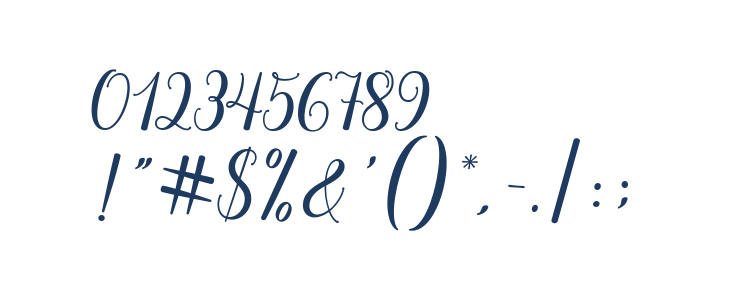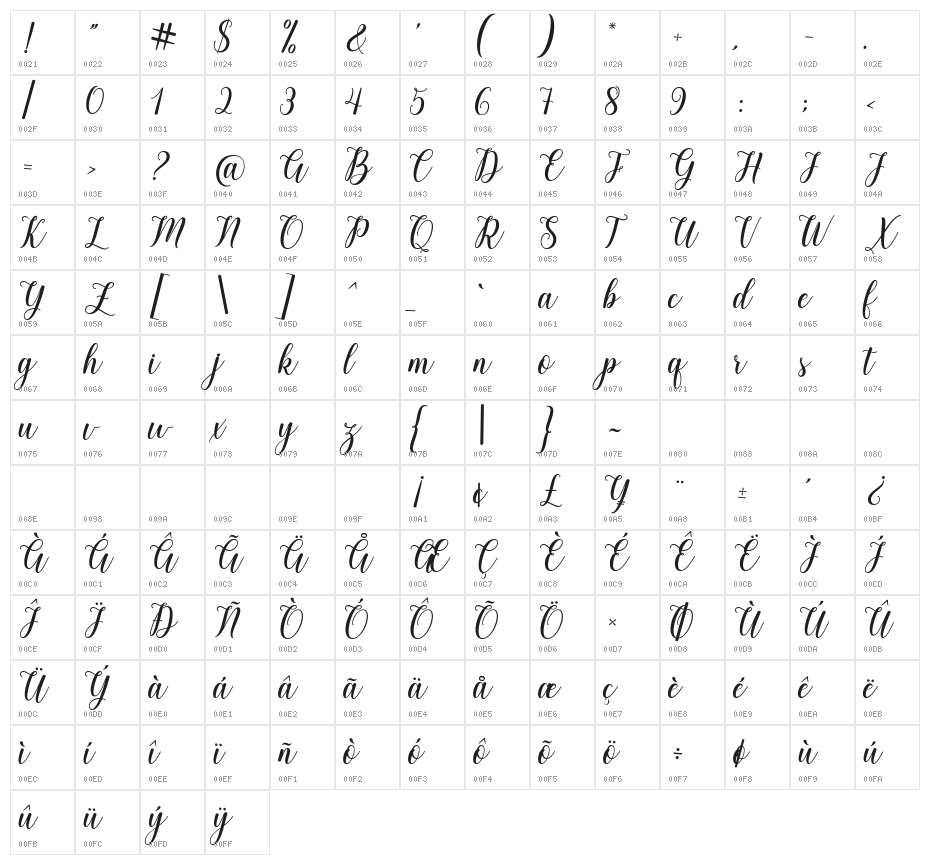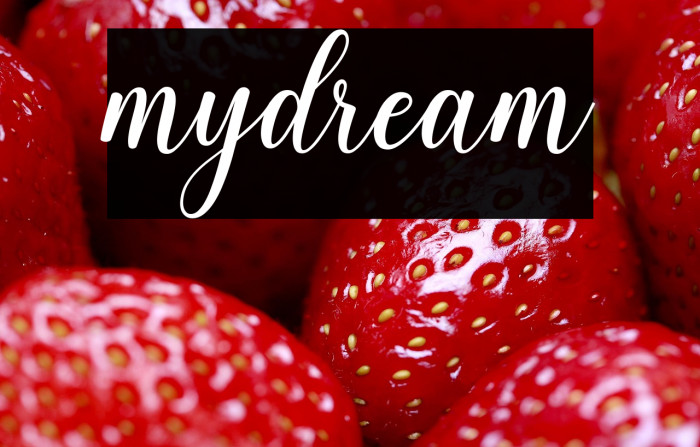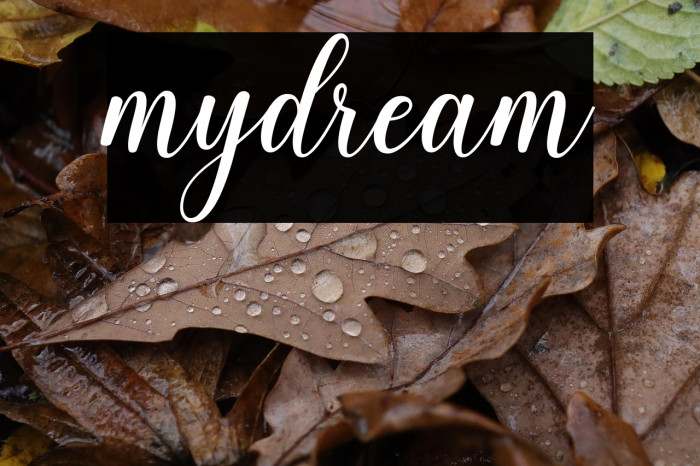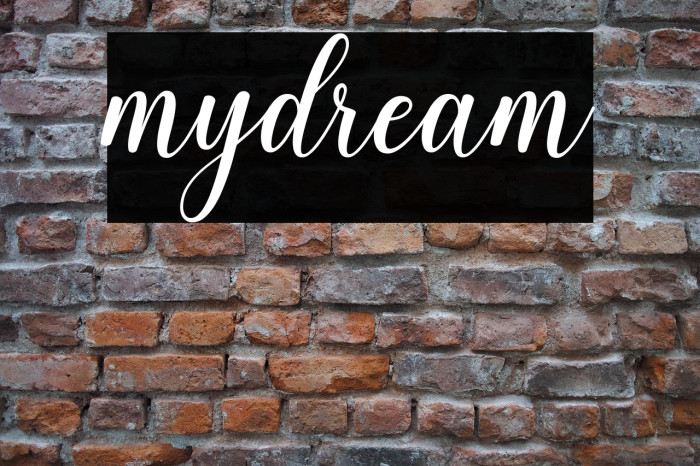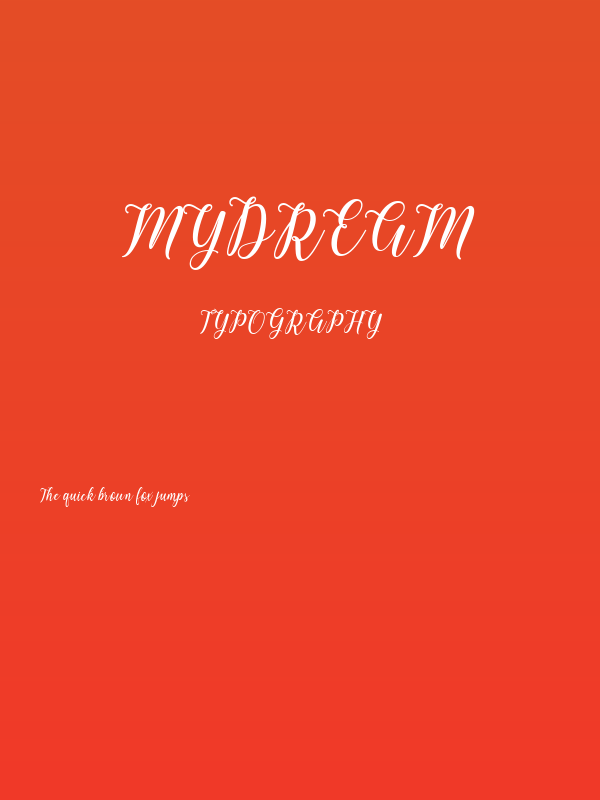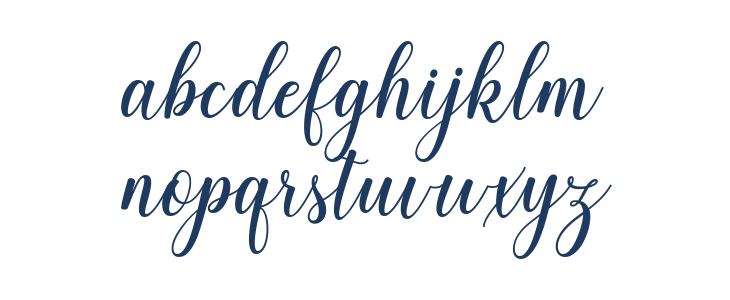
mydream Font
mydream Description
This font features an elegant and flowing script style, characterized by its smooth, cursive strokes and graceful curves. The uppercase letters are ornate, with intricate loops and flourishes that give them a sophisticated appearance. The lowercase letters maintain a consistent flow, enhancing readability while retaining a stylish flair. The numerals are designed with a similar elegance, incorporating subtle curves that complement the overall aesthetic. Special characters are thoughtfully crafted to match the font's refined style, making it suitable for a variety of design applications.
| Proposed Projects | Ideal for wedding invitations, greeting cards, branding projects, and elegant packaging designs. |